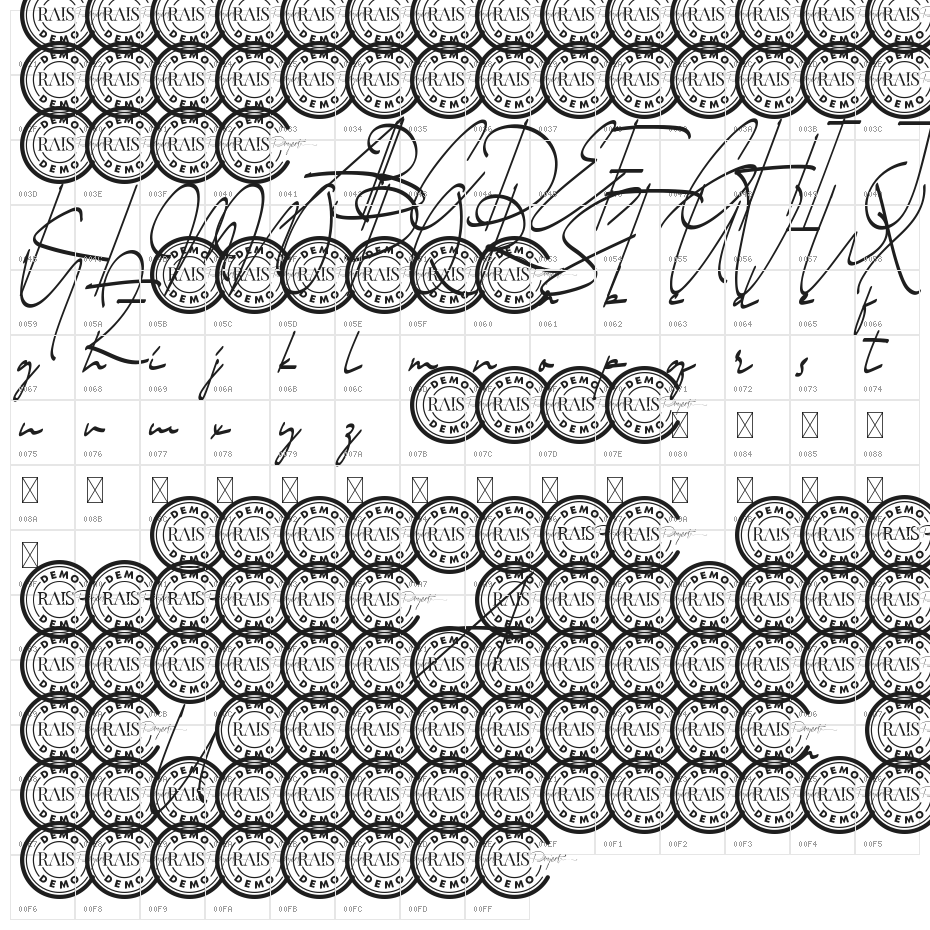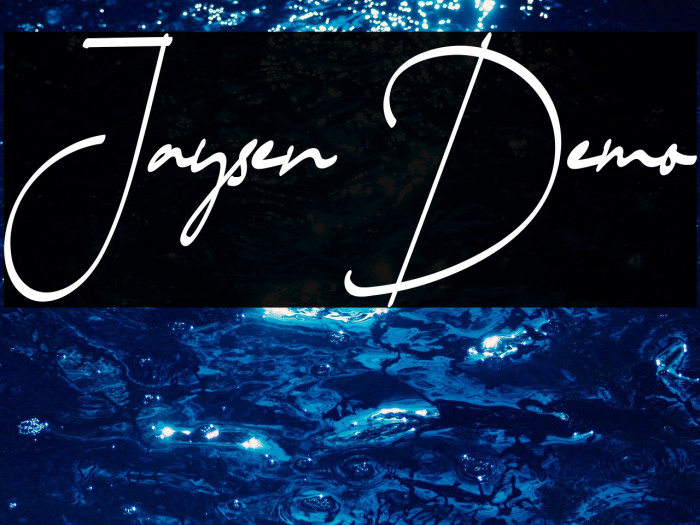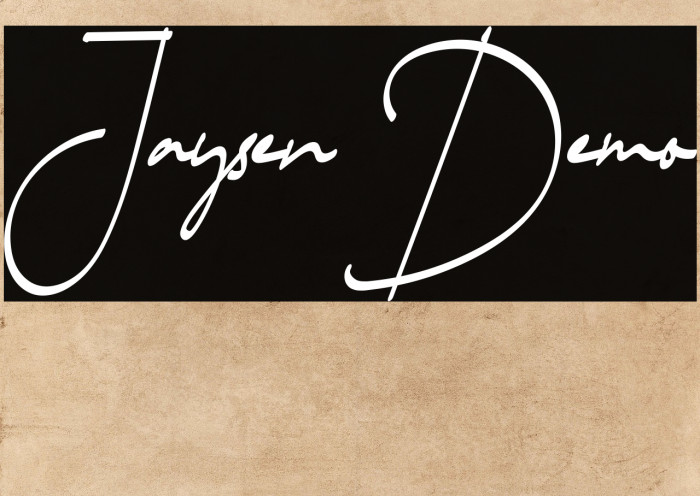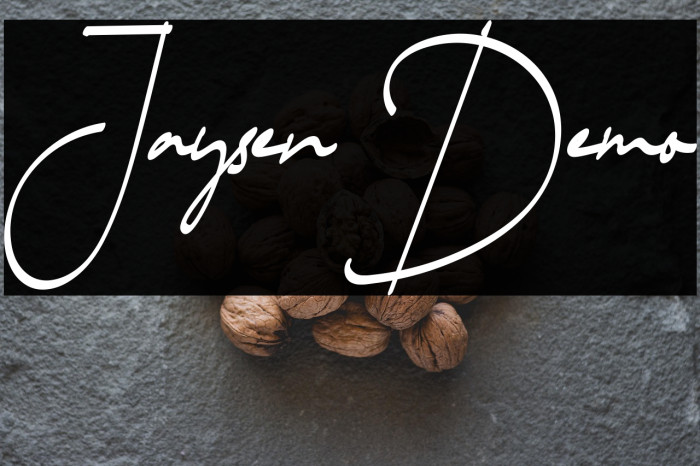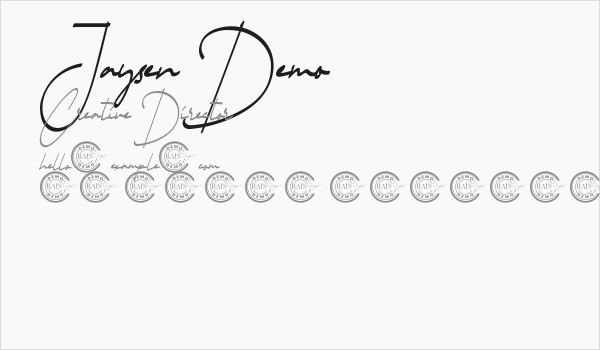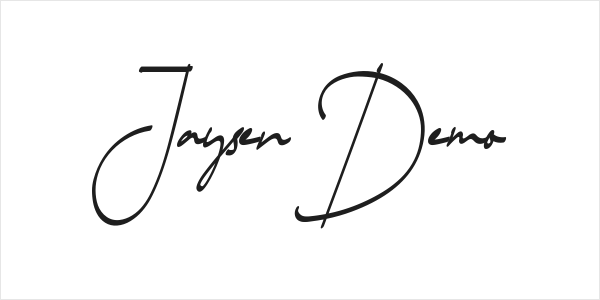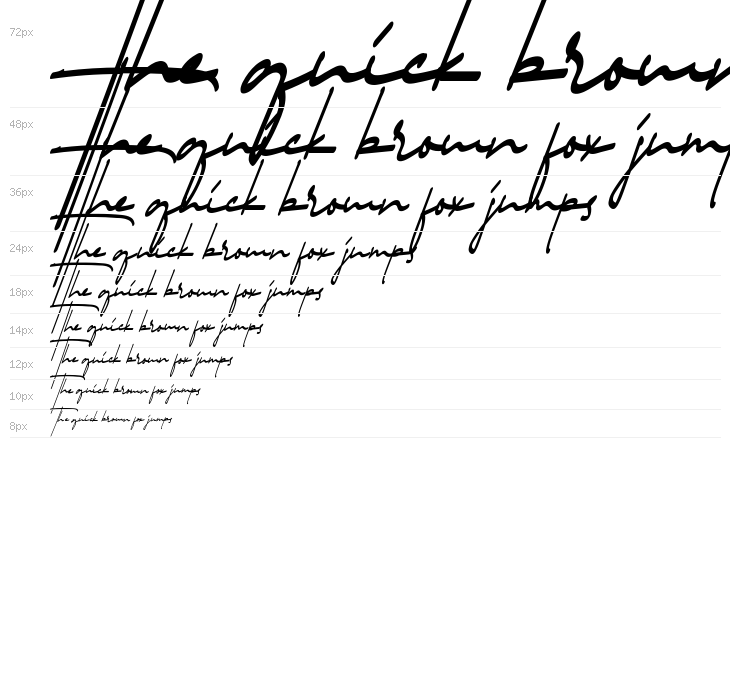
Jaysen Demo Font
Jaysen Demo Description
A dynamic and expressive handwritten script font with a modern flair, featuring fluid strokes and a natural flow.
| Proposed Projects | Invitations, personal branding, artistic projects. |